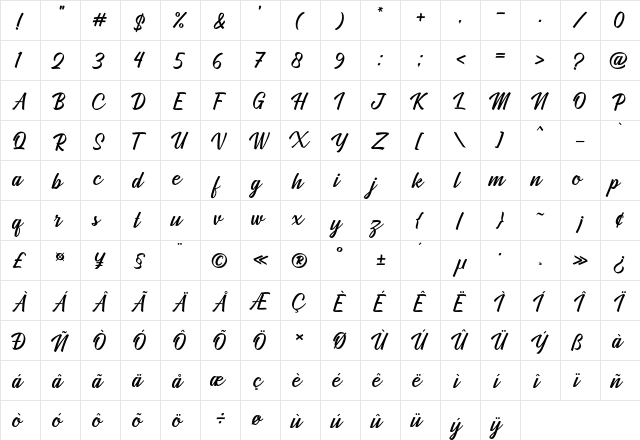
Quicklamb Regular
| Foundry | Fajar Abdul Fatah & Hendra Pratama |
| Designer | Fajar Abdul Fatah & Hendra Pratama |
Design Context for Quicklamb Typeface
Quicklamb is a composed and adaptable typeface that performs quietly and consistently across a wide range of design contexts.